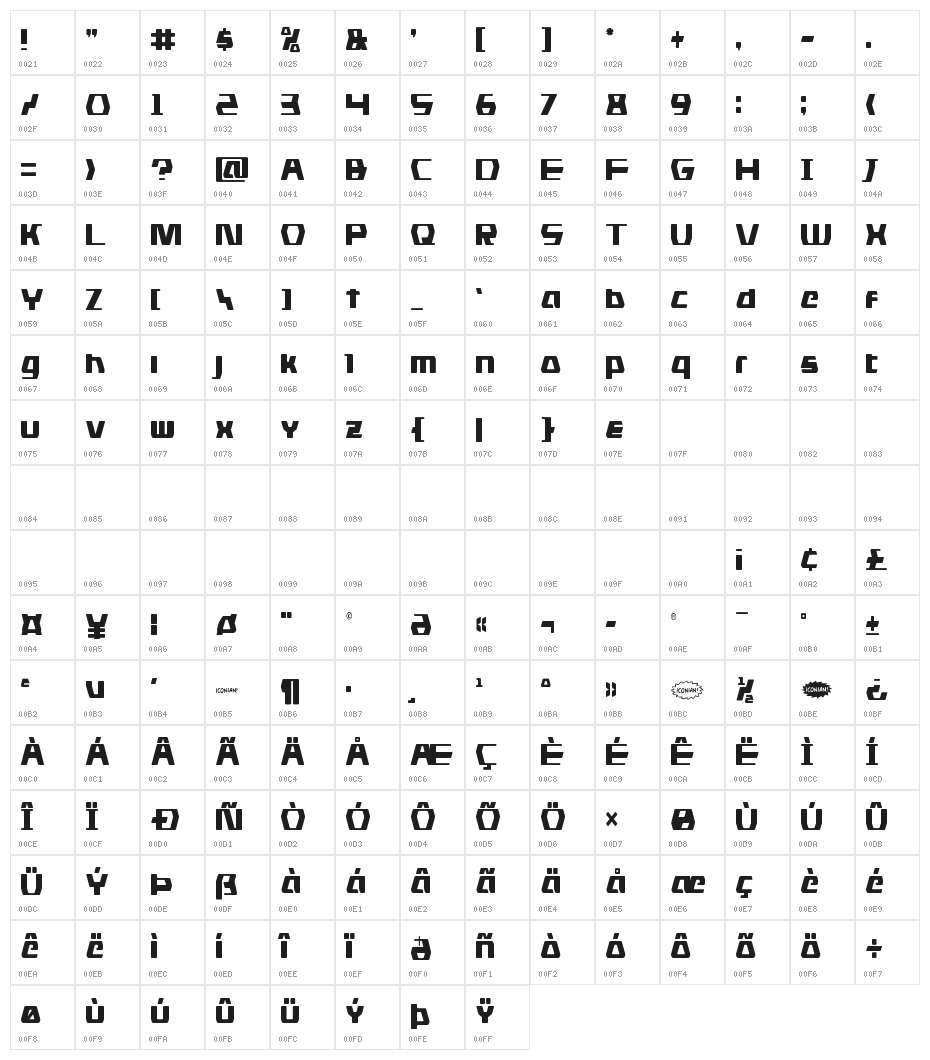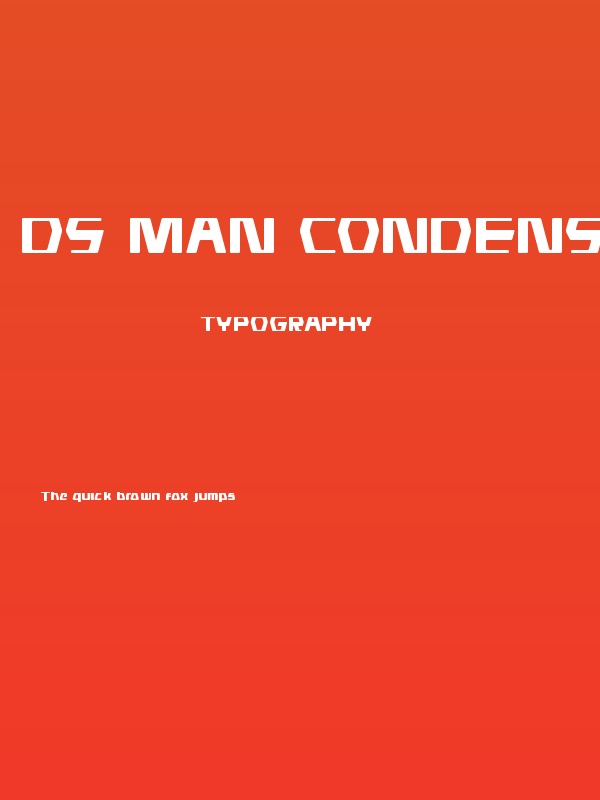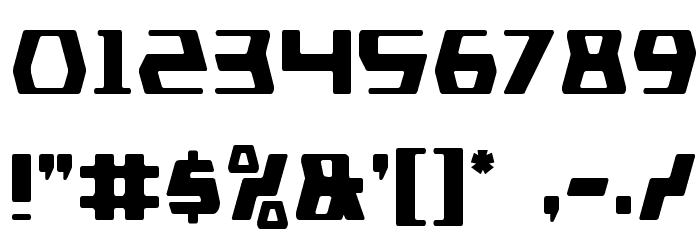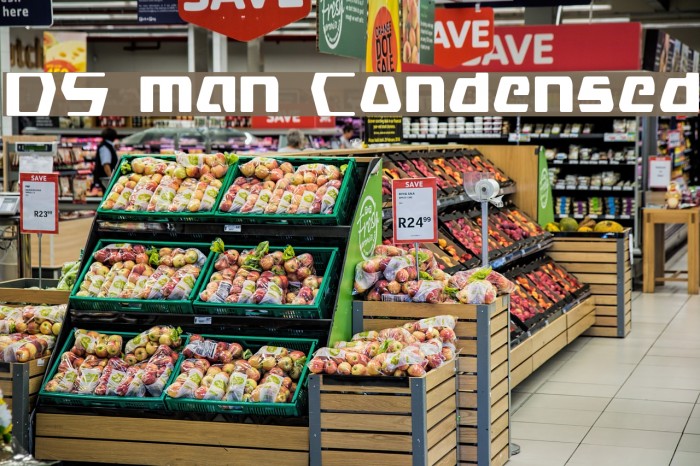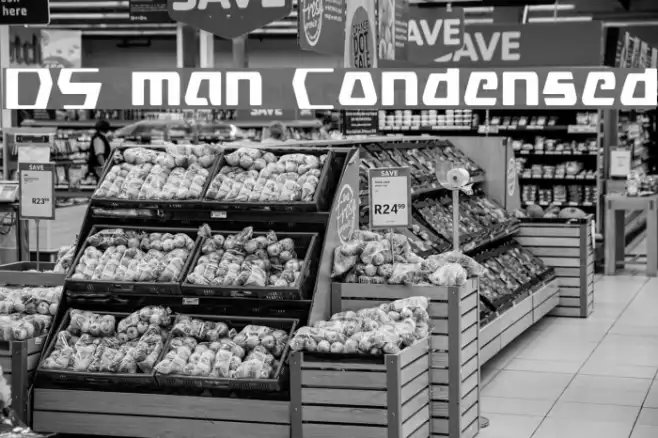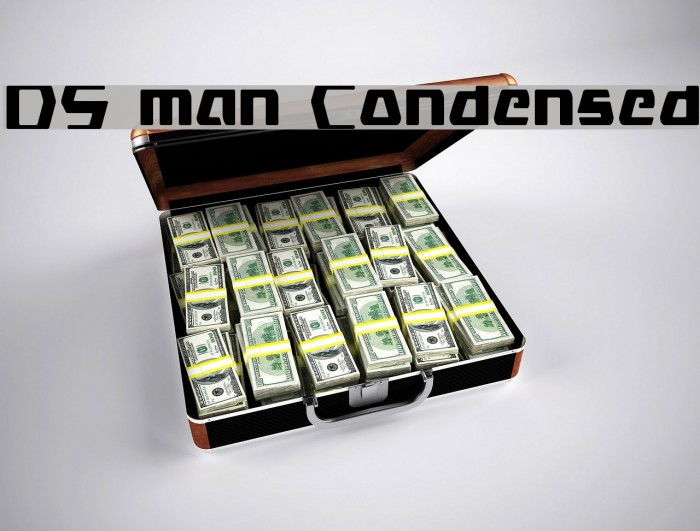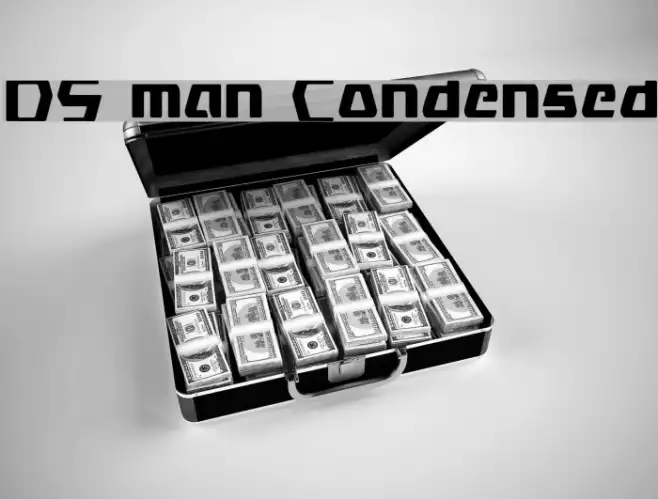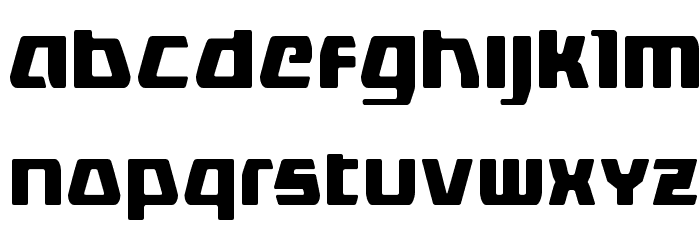
DS man Condensed Font
DS man Condensed Description
This font features a bold and geometric design with a distinctly modern and industrial feel. The characters are condensed, giving them a compact appearance that is both striking and efficient in space usage. The angular shapes and sharp edges contribute to a futuristic aesthetic, making it ideal for projects that require a strong visual impact. The uppercase and lowercase letters maintain a consistent style, with uniform stroke widths that enhance readability. The numerals and special characters are designed to match the overall theme, ensuring a cohesive look across all text elements.